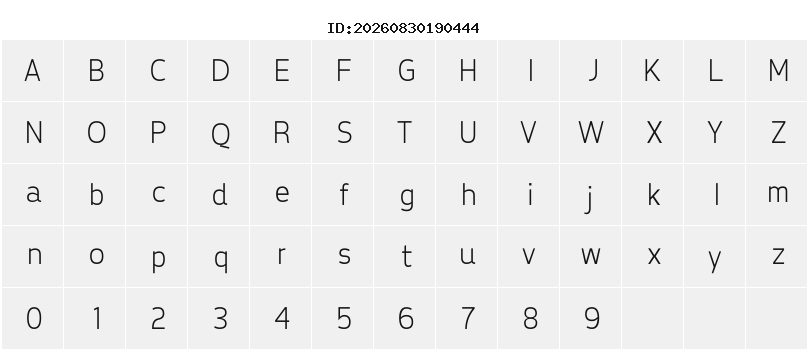
Tepeno Sans Light Preview
• Font Name: Tepeno Sans Light
• Designer: Jayvee D. Enaguas (Grand Chaos)
About Tepeno Sans Light.ttf
Tepeno Sans Light.ttf is a modern, elegant sans-serif font designed for ultimate readability and visual harmony. Perfect for branding, headlines, web design, and print materials.